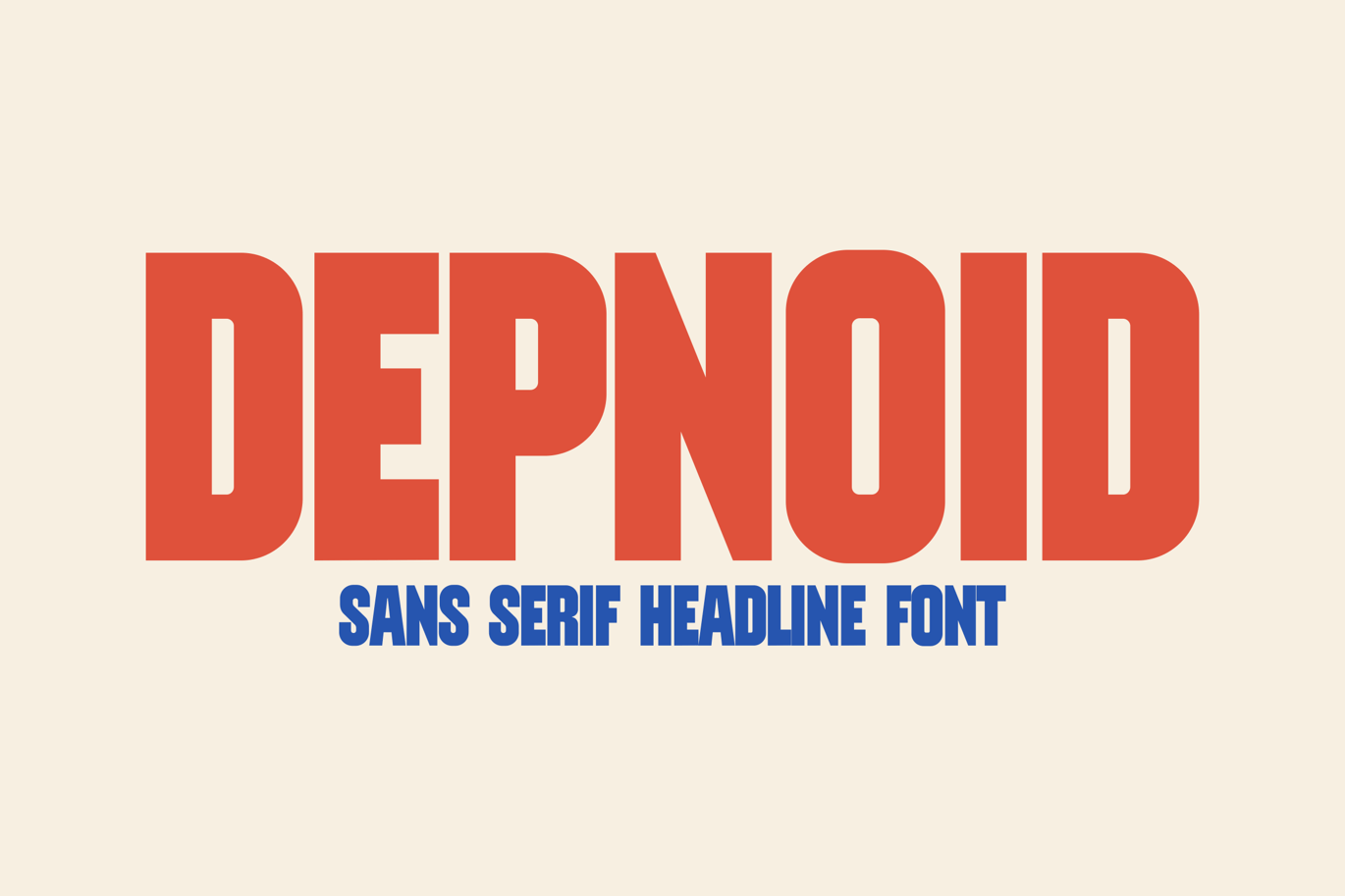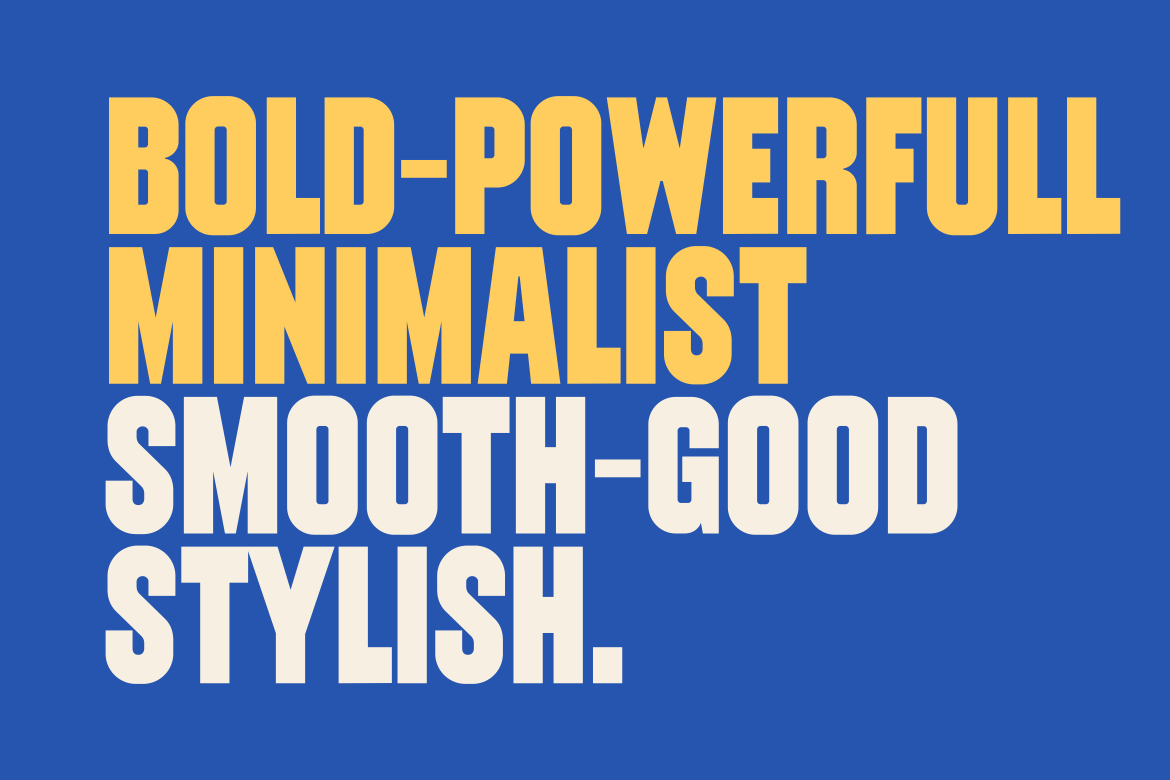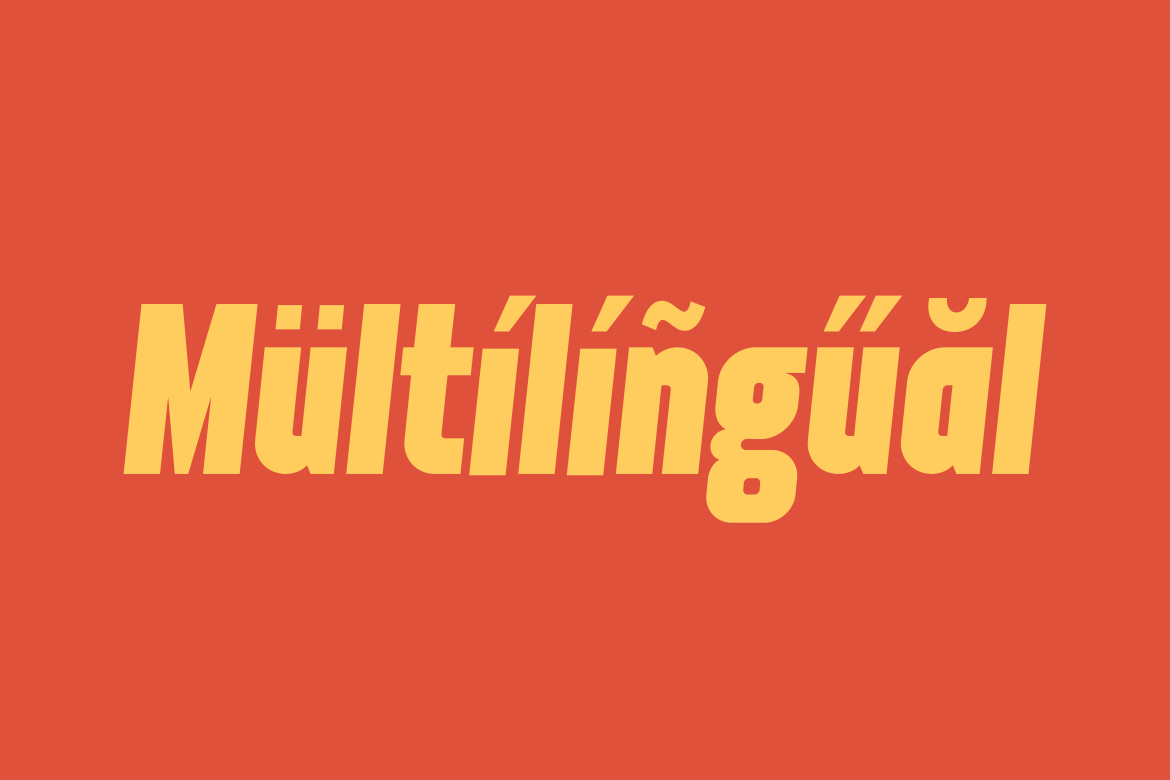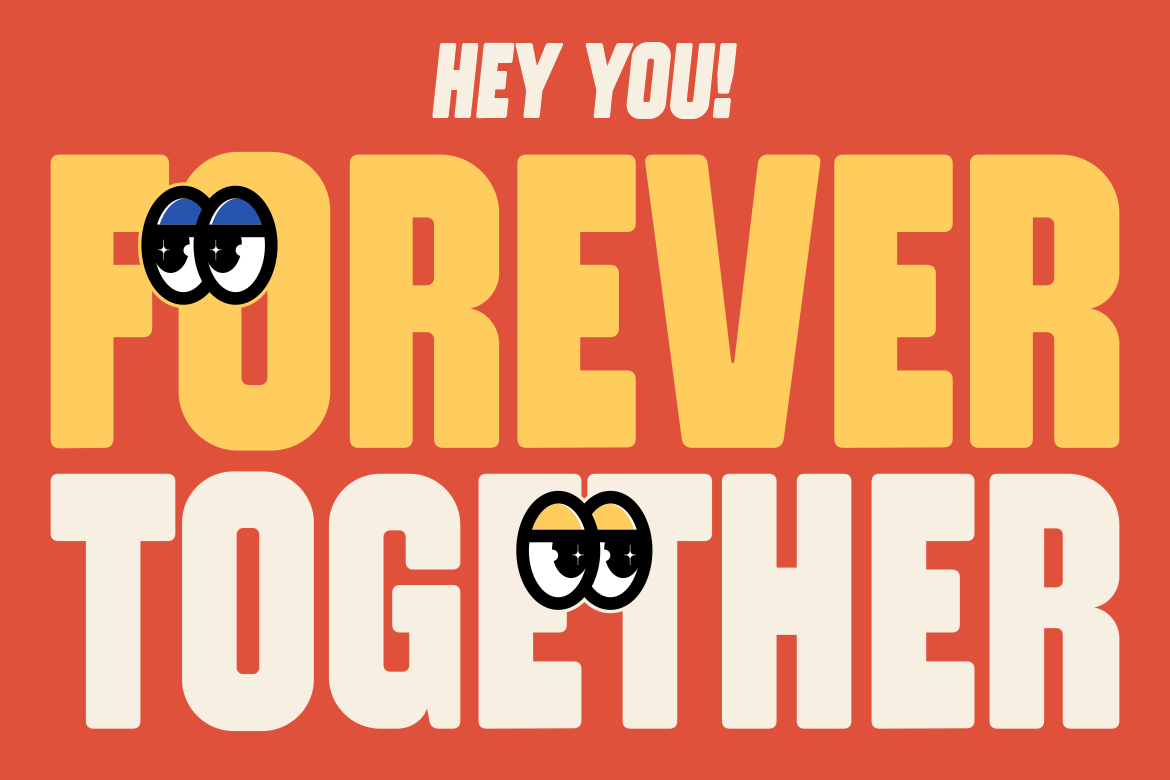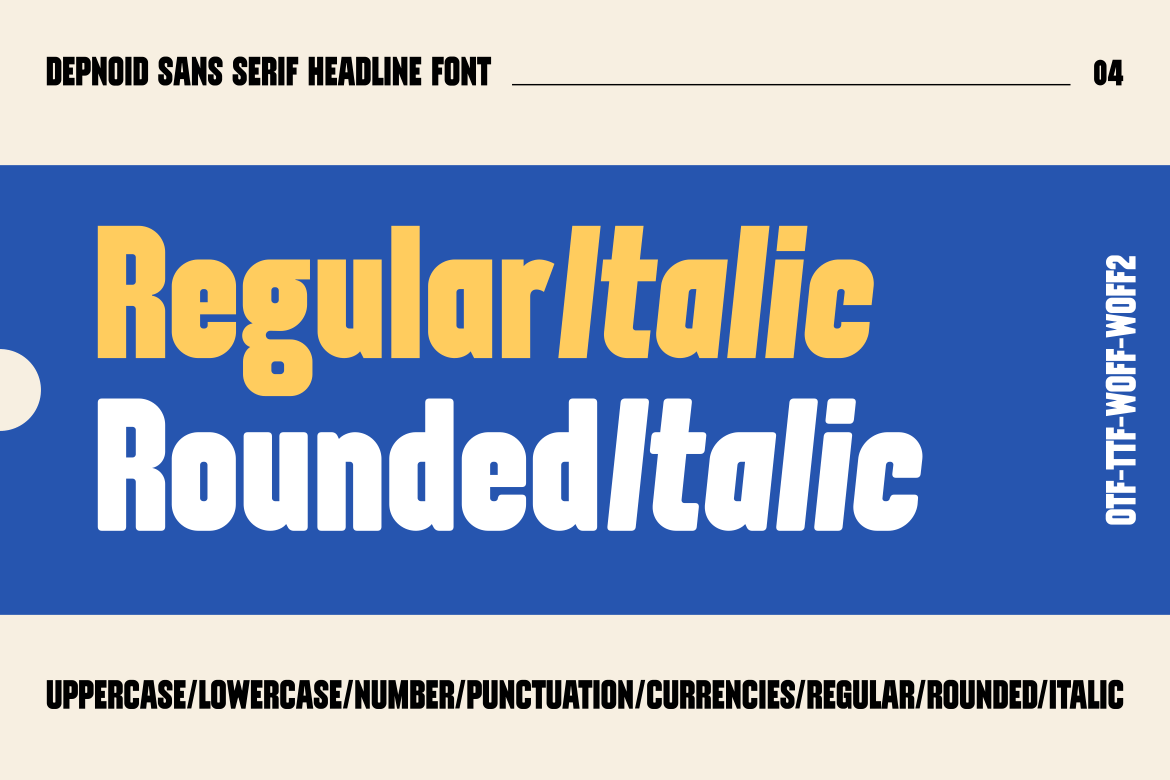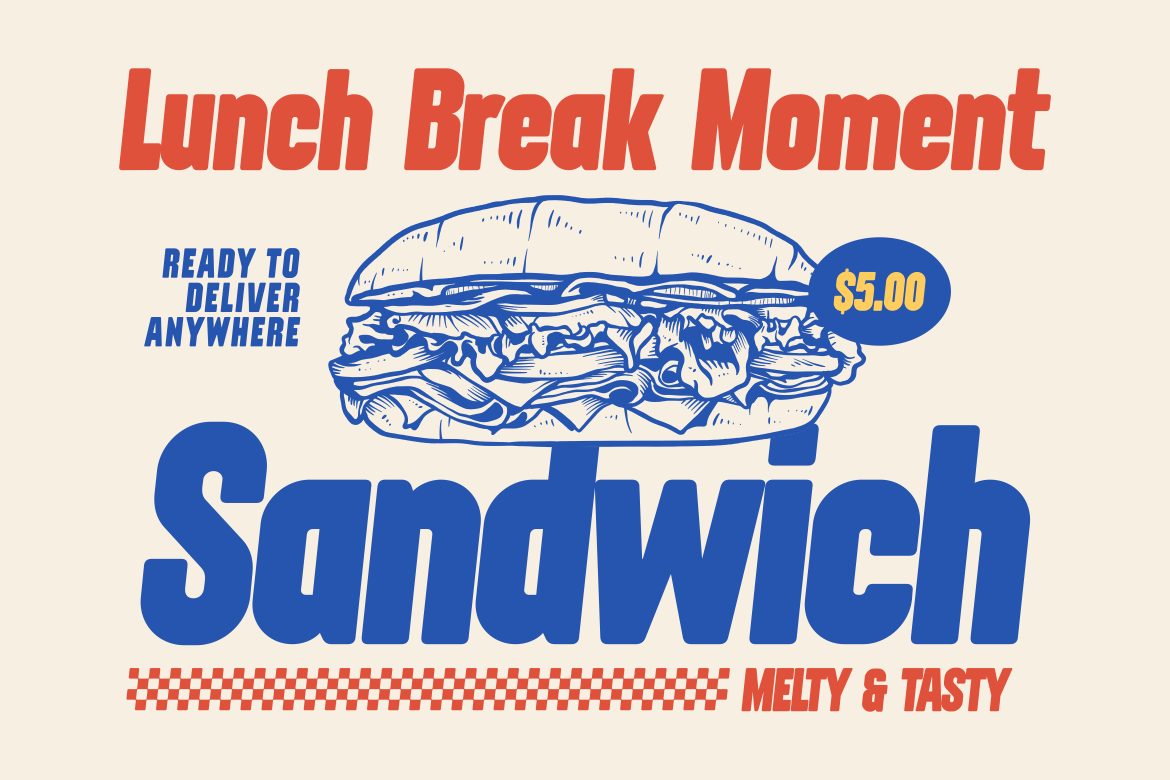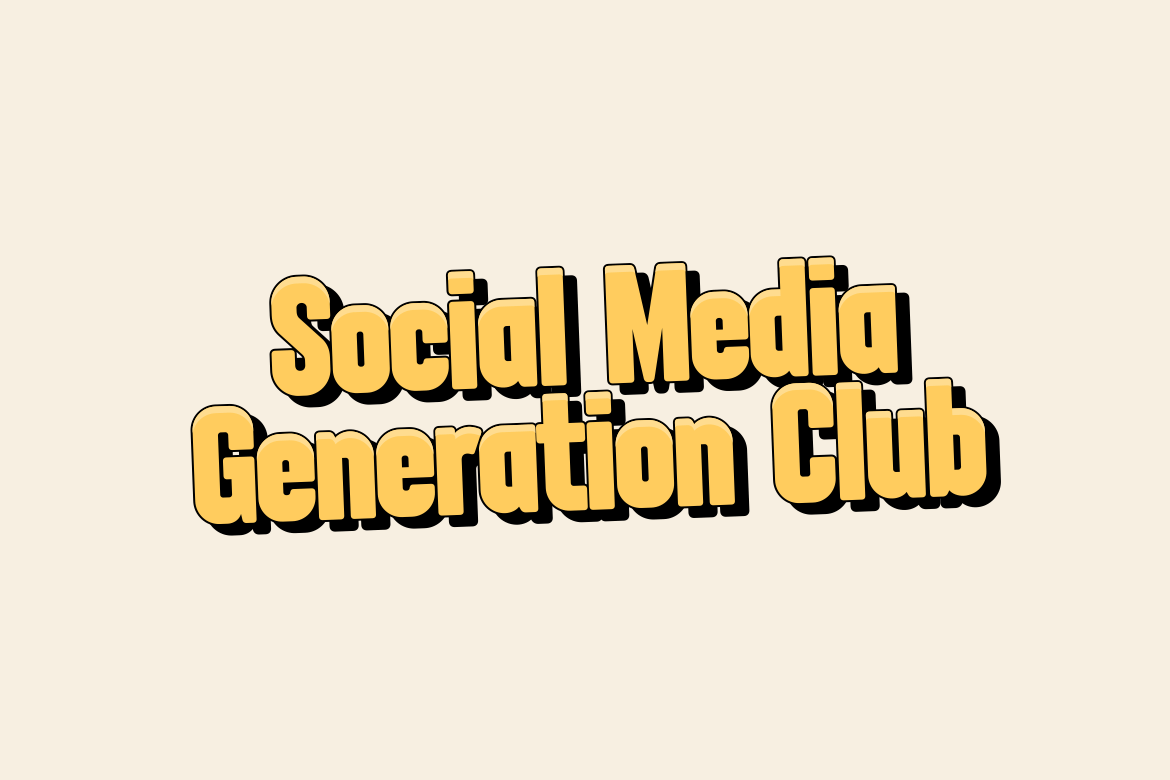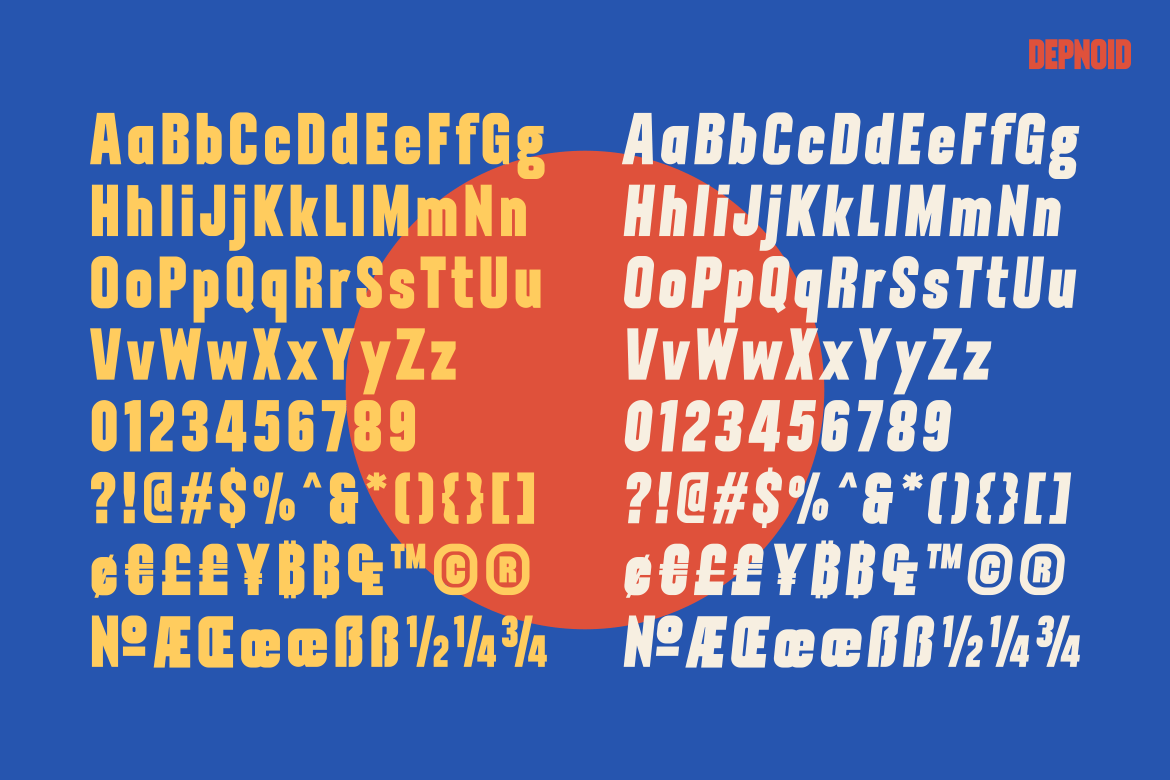
Depnoid Bold Font
Depnoid is a bold font, available in regular, italic, round, and round italic styles. Dipnoid will be good to use for posters, titles, logos, headlines, etc.